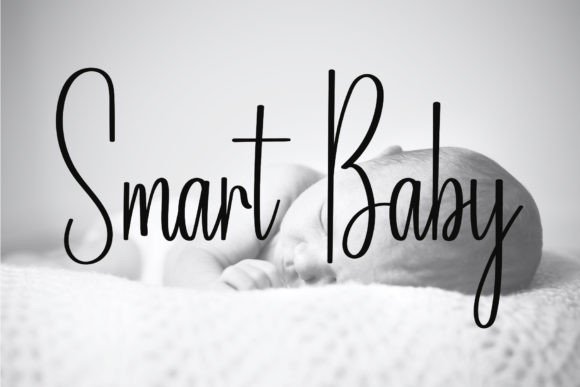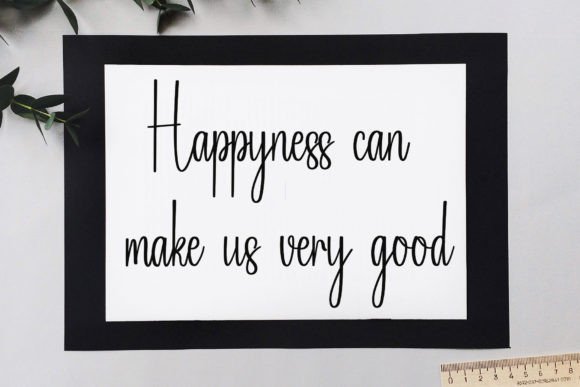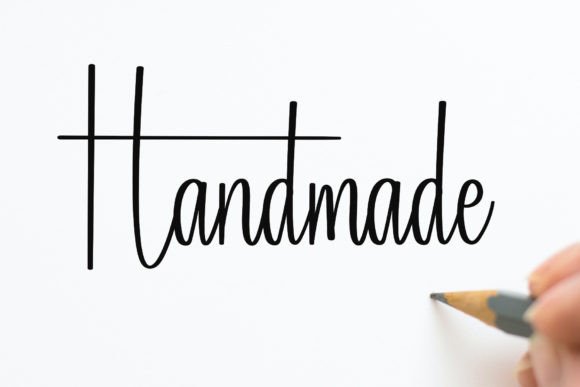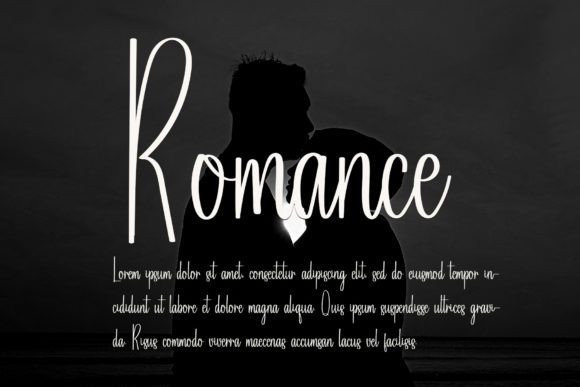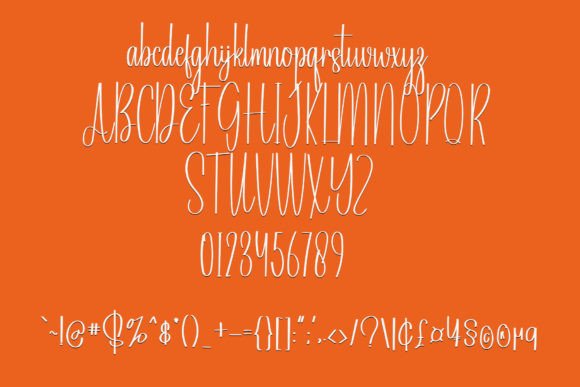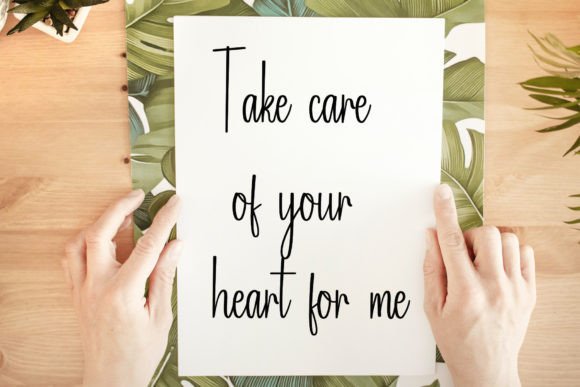
Introducing Happy Signature Font: Elevate Your Creativity with Elegance
Are you on the hunt for a font that adds a touch of sophistication and whimsy to your creative projects? Look no further than Happy Signature Font, a beautiful script font designed to bring a dash of elegance to your designs. Whether you’re a designer, crafter, or DIY enthusiast, this versatile font is sure to become your new go-to.
The Story Behind Happy Signature Font
Happy Signature Font is a carefully crafted script font that exudes a sense of joy and playfulness. With its neat and natural flow, this font is perfect for adding a personal touch to your creative projects. The designers behind Happy Signature Font have poured their hearts into creating a font that is not only aesthetically pleasing but also highly versatile.
What Makes Happy Signature Font Special?
- Elegant and Refined: Happy Signature Font boasts a sophisticated and elegant design that’s perfect for high-end projects or everyday use.
- Neat and Natural: The font’s natural flow and spacing make it easy to read and visually appealing.
- Highly Versatile: Use Happy Signature Font for Instagram posts, calligraphy scripts, DIY projects, and more.
Happy Signature Font is a dream come true for designers and crafters looking to add a personal touch to their work. Whether you’re creating:
- Social Media Graphics: Elevate your Instagram posts and stories with Happy Signature Font’s elegant script.
- Calligraphy Scripts: Use Happy Signature Font to create beautiful, hand-written scripts for special occasions or everyday use.
- DIY Projects: Add a touch of sophistication to your craft projects, such as handmade cards, invitations, or decorations.
Tips for Using Happy Signature Font
To get the most out of Happy Signature Font, try these expert tips:
- Mix and Match: Combine Happy Signature Font with other fonts for a unique look.
- Experiment with Colors: Try pairing Happy Signature Font with bold, bright colors for a statement look.
- Play with Size: Use Happy Signature Font in various sizes to create visual interest and hierarchy.
In conclusion, Happy Signature Font is a must-have for designers, crafters, and DIY enthusiasts looking to add a touch of elegance and whimsy to their creative projects. With its neat and natural flow, highly versatile design, and ease of use, this font is sure to become a staple in your design toolkit. So why wait? Get creative with Happy Signature Font today and turn your ideas into true works of art!